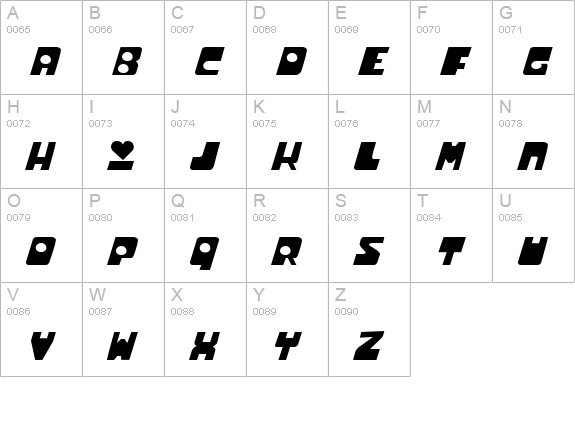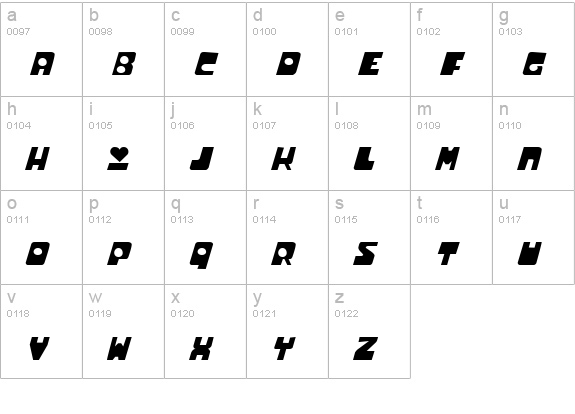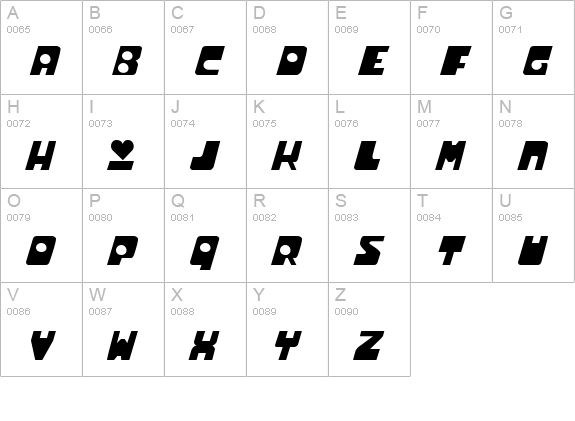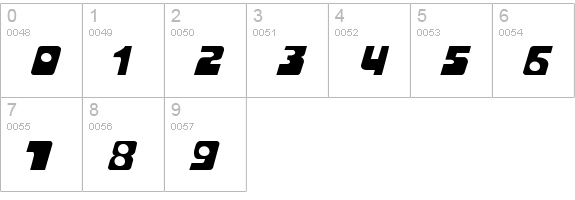
Introducing the charming and playful Powerpuff font, designed to bring a touch of whimsy and fun to your creative projects. This delightful font is perfect for adding a youthful and energetic vibe to your designs, whether it's for children's books, invitations, posters, or branding. Best of all, the Powerpuff font is available for free download at FontsMarket.com! Simply visit the website to get your hands on this eye-catching typeface and start incorporating its cheerful personality into your work today. With its bold, rounded letters and distinctive style, the Powerpuff font is sure to make a statement and leave a lasting impression on your audience. Let your imagination soar with this free and fabulous font!